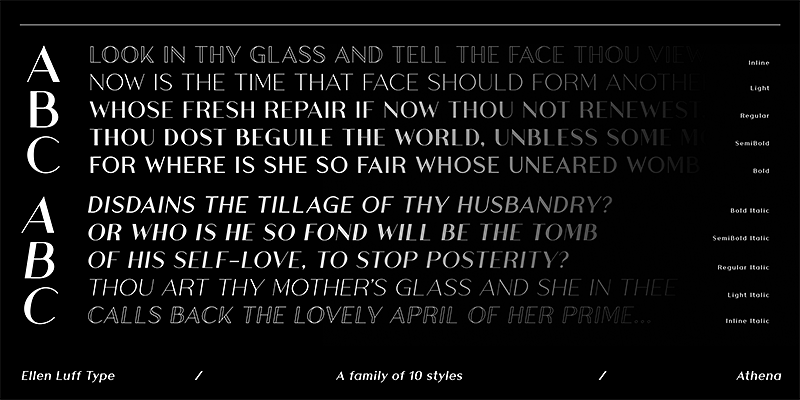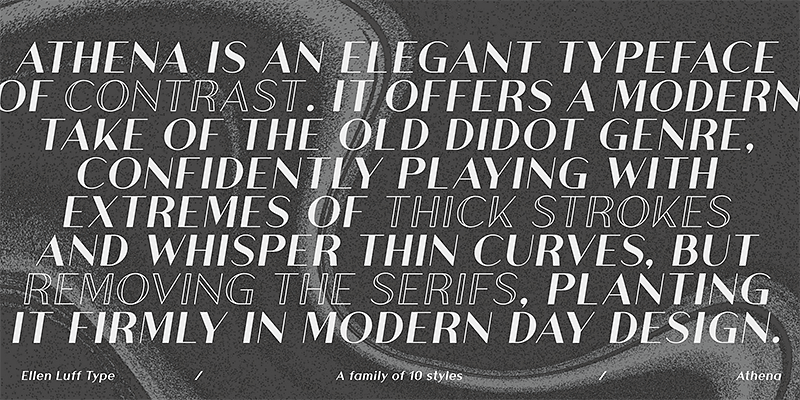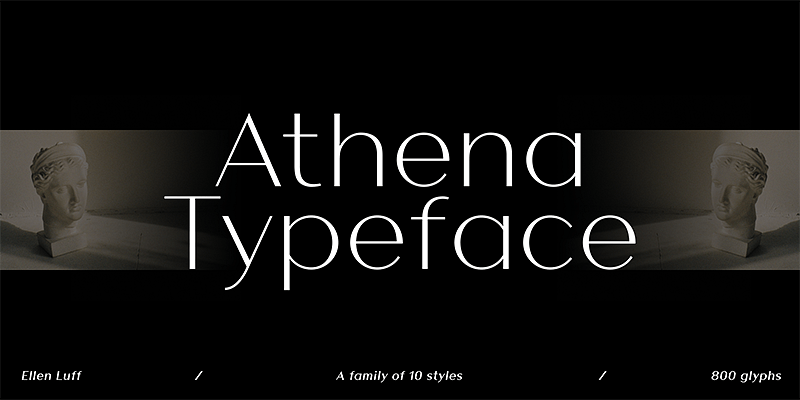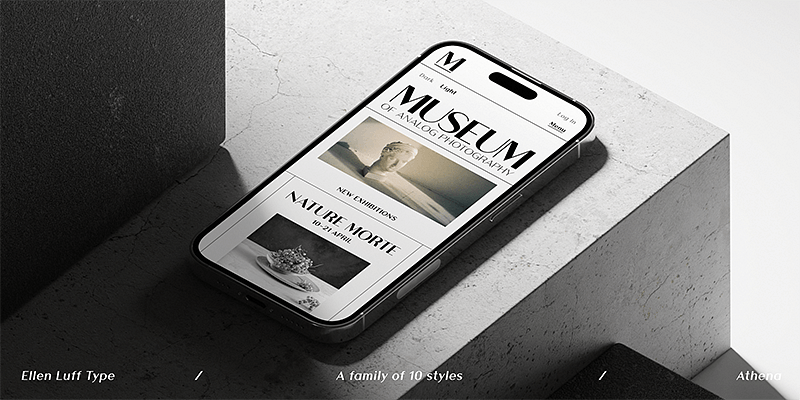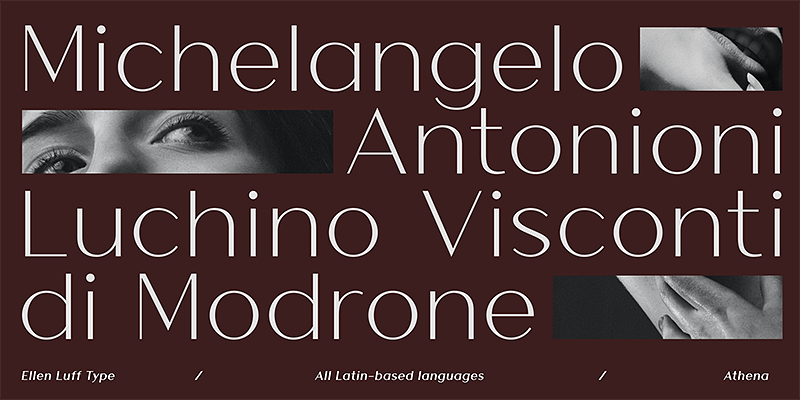
Athena, from Ellen Luff Type Foundry, is an elegant typeface of contrast. Designed for branding, headlines, and titles. The family offers class and clarity at larger and smaller sizes. It’s a modern, serifless take on the old Didone genre. A careful collaboration between beauty and function while confidently playing with extremes of thick strokes and whisper-thin curves. Athens Light, Regular, Bold, and inline are designed specifically for headlines, titles, and branding. Athens Book is optically designed for use in smaller sizes, making it ideal for body copy. Each font offers something different, but all are crafted to work harmoniously together.